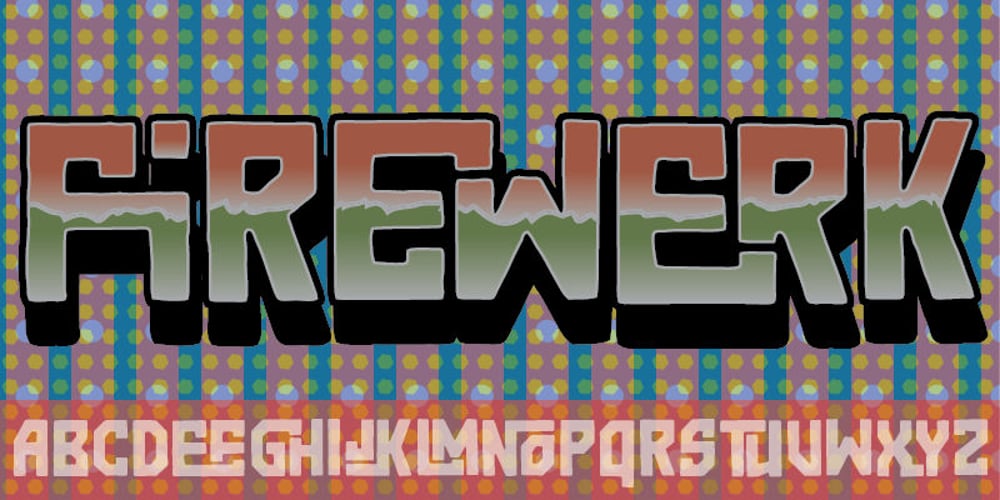
Firewerk
Firewerk font
Firewerk Font Family was designed by Jakob Fischer and published by PizzaDude.dk. Firewerk contains 1 styles and family package options. A squarish font with rounded edges with an amazing number of ligatures—298 to be more precise. That should be enough to make your text look like hours of fun! You will need to use OpenType supporting applications to use the autoligatures.